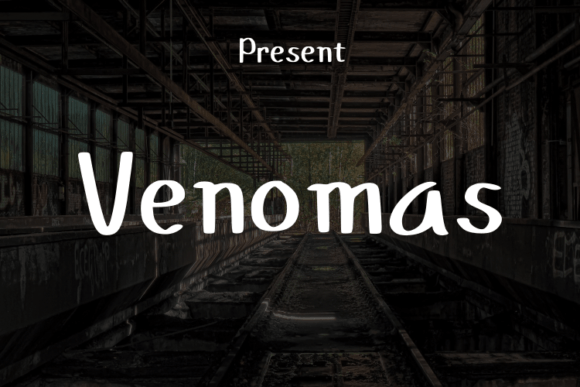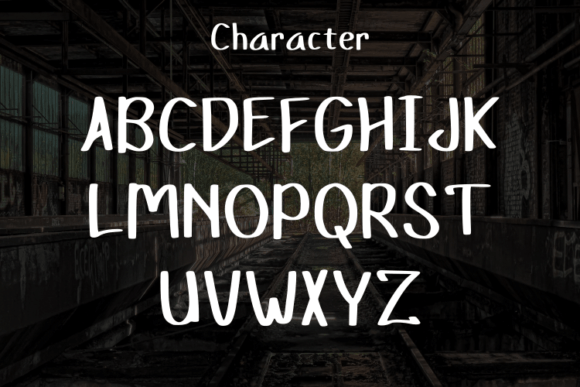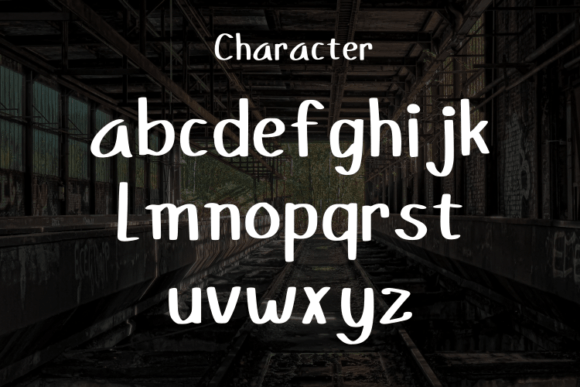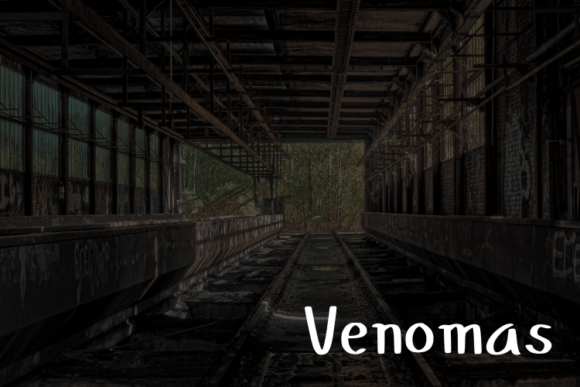
Venomenas Font
About Venomenas Font
“Venomenas” is a sleek and contemporary handwritten font that effortlessly combines simplicity with modernity, making it an excellent choice for a variety of design projects. Its clean and straightforward style lends a touch of sophistication, making it ideal for elegant and luxurious applications such as logos, book or movie titles, fashion brands, magazines, clothing designs, fonts, quotes, and more. Adding “Venomenas” to your font library opens up a world of possibilities, enhancing the overall aesthetic of your designs.
The font’s simplicity and modern design create a polished and refined look, ensuring readability and visual appeal. Its minimalist letterforms exude elegance and professionalism, making it suitable for high-end branding, upscale publications, and chic fashion designs. Whether used for luxurious logos or stylish editorial layouts, “Venomenas” elevates the visual impact, adding a sense of sophistication and class to your projects.
“Venomenas” excels in its ability to convey a sense of elegance and luxury with its clean and uncluttered appearance. Its straightforward style makes it versatile and adaptable, allowing it to seamlessly integrate into various design contexts. Whether applied to refined branding or contemporary fashion layouts, “Venomenas” adds a touch of sophistication that resonates with viewers, leaving a lasting impression.
Embrace the simplicity and modernity of “Venomenas” and discover how it enhances your creative endeavors. Its clean and elegant style makes it a valuable asset for designers seeking to create visually striking and sophisticated designs. With “Venomenas,” you can confidently craft sleek and refined visuals that capture attention, showcasing your design expertise and attention to detail.